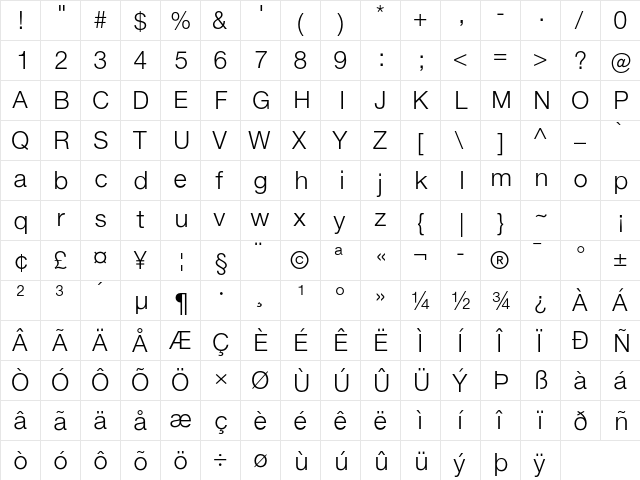
Helvetica Neue ET Std 45 Light
45 Light · Linotype GmbH Linotype Design Studio ·
Foundry Linotype GmbH
DesignerLinotype Design Studio
Design Context for Helvetica Neue ET Std Typeface
Helvetica Neue ET Std takes a measured approach to typography — its balanced proportions and neutral character make it a reliable workhorse for both digital and print work. Its slender proportions lend an understated elegance to any composition.
Pro Tip: Pair Helvetica Neue ET Std with a font of contrasting weight or personality to build a more expressive typographic hierarchy.